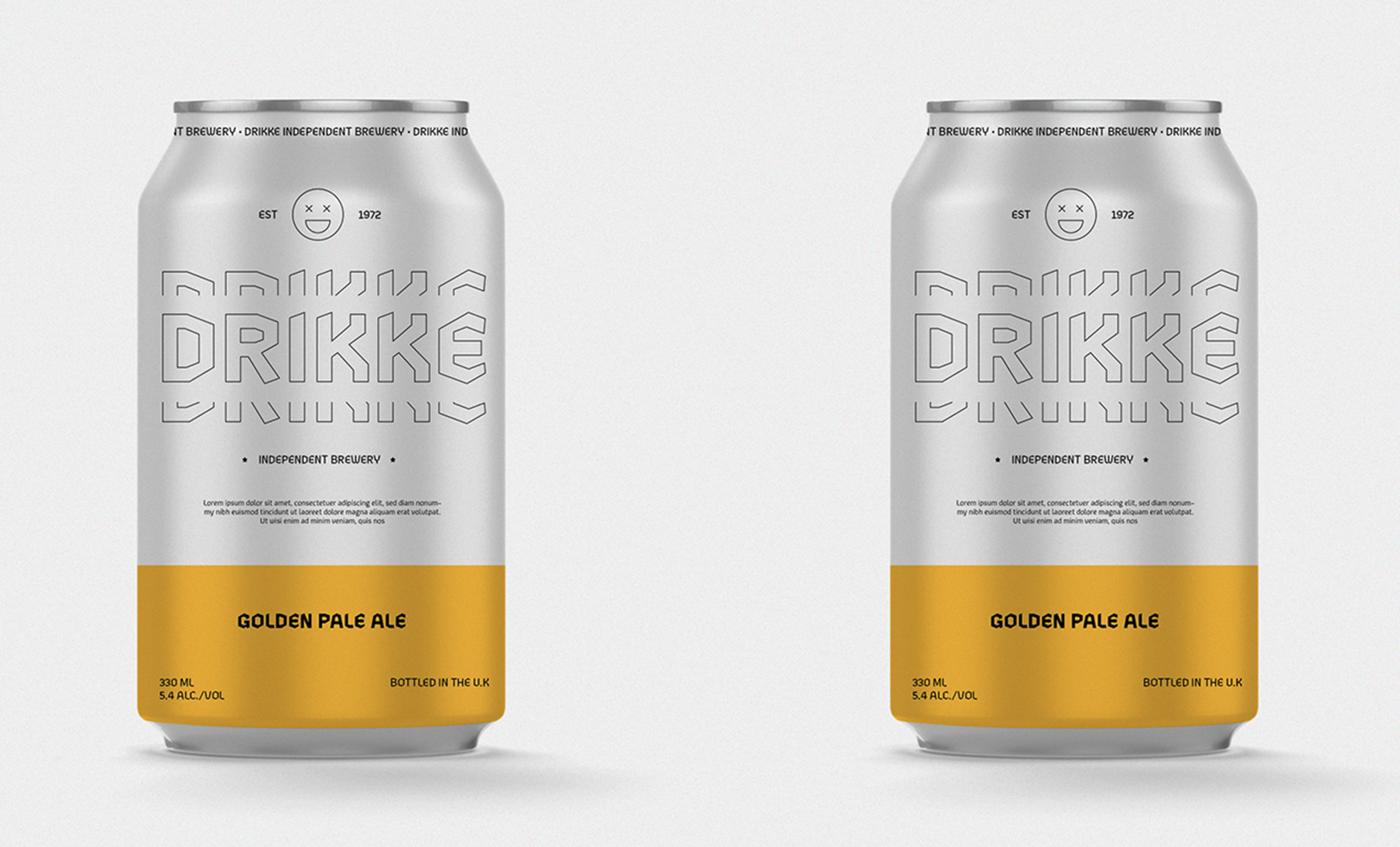
Zenga represents a contemporary typographic fusion, skillfully combining the precision of geometric design with subtle elements inspired by blackletter forms from the gothic tradition. The typeface prioritizes clean lines and exact proportions, ensuring readability and adaptability across various design contexts. Its geometric foundation provides a modern aesthetic, while hints of blackletter add a touch of historical elegance.
Zenga is not just visually striking but also optimized for the demands of the digital age. Whether on grid-based layouts or pixel-dense screens, Zenga maintains clarity, making it versatile for diverse design applications. This typeface invites designers to explore the rich heritage of gothic styles while embracing the necessities of contemporary design in both print and digital mediums.
Details include five distinctive weights with italics, over 500 characters per style, five variations of numerals with stylistic zeros, ten alternate characters, extended symbols including chess pieces and OpenType features.